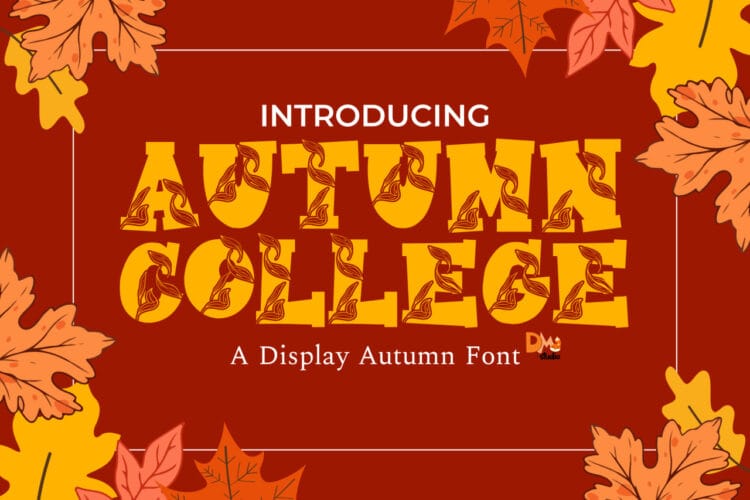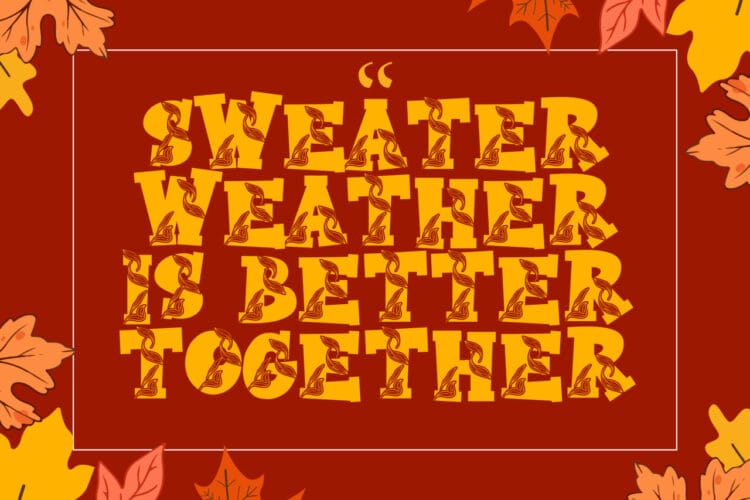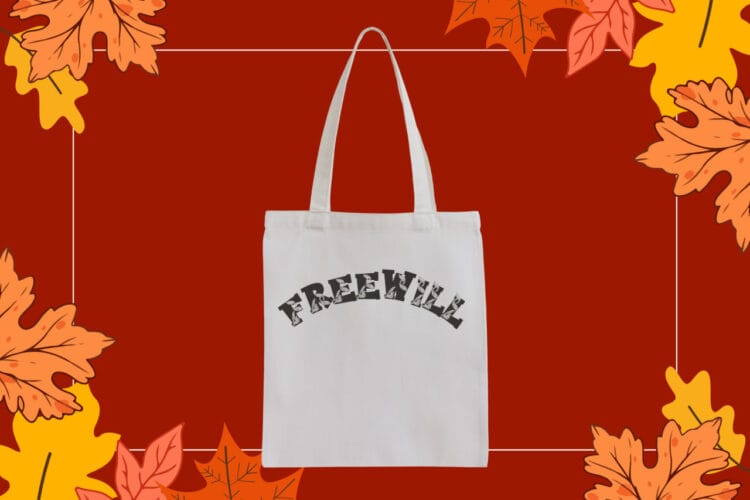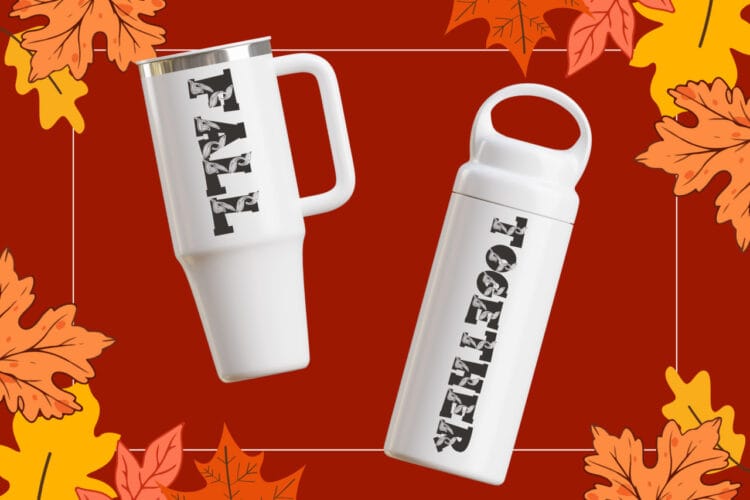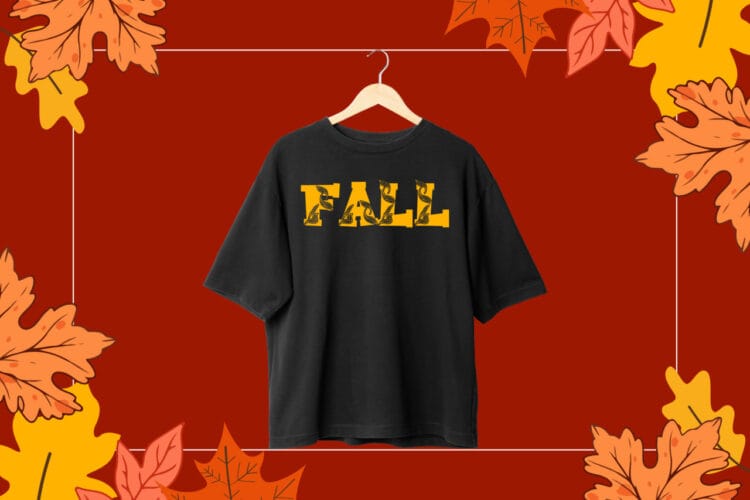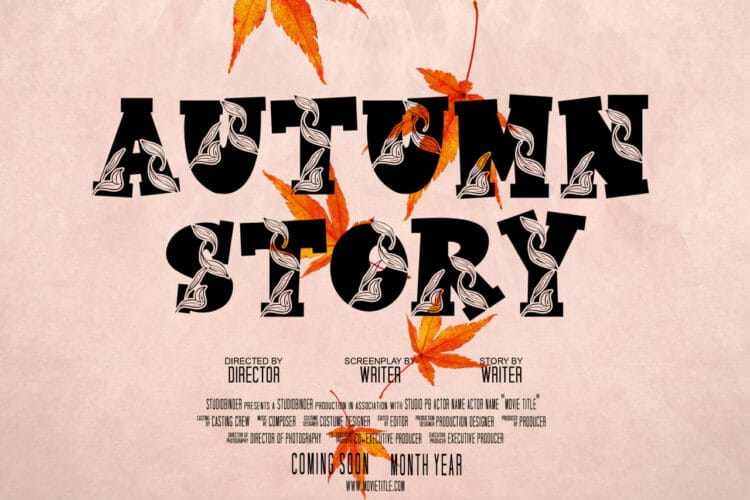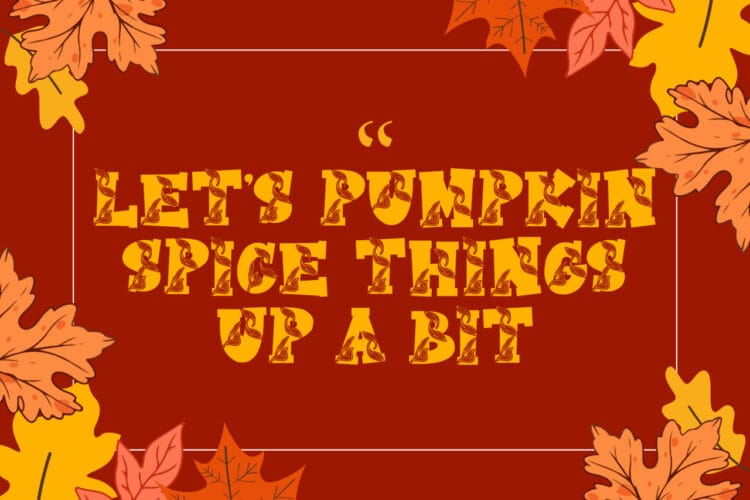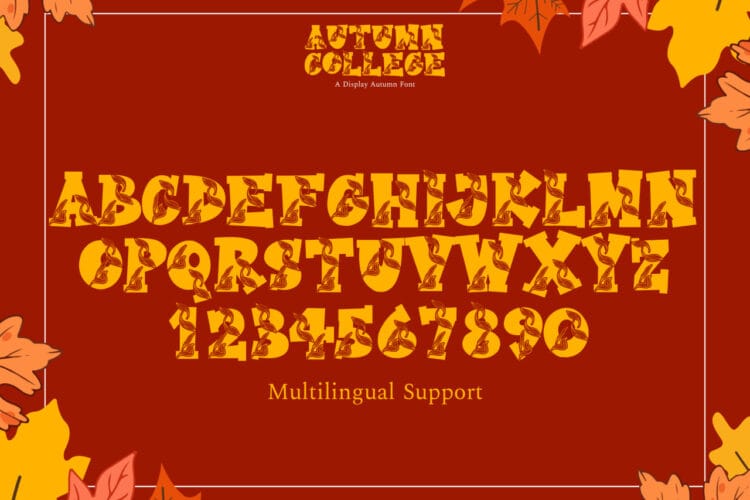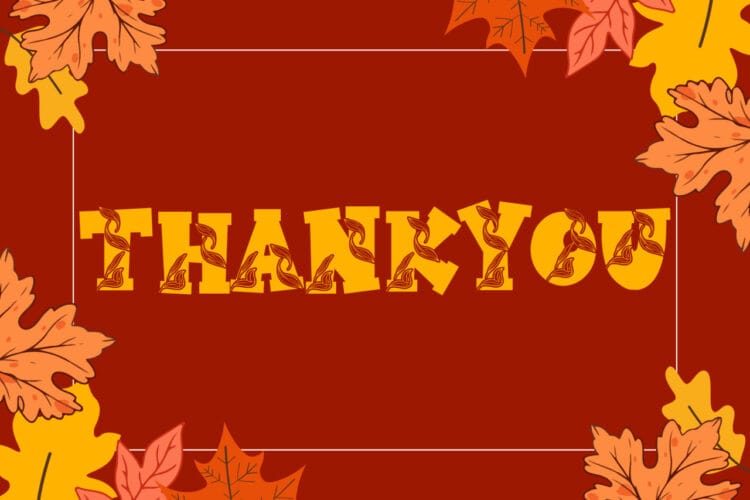
Meet Autumn College Font
Autumn College Font blends campus energy with cozy fall style. Letters feel bold, upright, and friendly. Because the strokes are sturdy, your words read fast on shirts, tags, and thumbnails. Use it for banners, party kits, class merch, and seasonal reels. Moreover, it loves outlines, shadows, and patch textures. Therefore, even simple mockups look warm and eye-catching.
Where the Autumn Font shines
Set short phrases like “Harvest Game,” “Homecoming,” or a family name. Then add stitch edges, chenille effects, or grain to echo vintage patches. Since spacing is tuned for headlines, layouts come together in minutes. As a result, you can launch full sets for school fairs, tailgates, and fall festivals.
Design tips with the Autumn Font
Keep copy short and let the letterforms lead. Pair Autumn College Font with a clean geometric sans for captions. Meanwhile, try double strokes, soft shadows, or inner lines for depth. Because the shapes are rounded, felt textures and craft-paper backgrounds look great. Plus, a tiny halftone adds old-stadium charm.
Why creators choose this Autumn College Font
You want fall warmth with bold clarity. This typeface delivers. It grabs attention in crowded feeds and speeds production. Also, it scales from sticker sheets to sideline banners without losing impact. However, remember its sweet spot: titles, names, and short phrases. Consequently, when layouts stay simple, results feel modern, cheerful, and memorable.